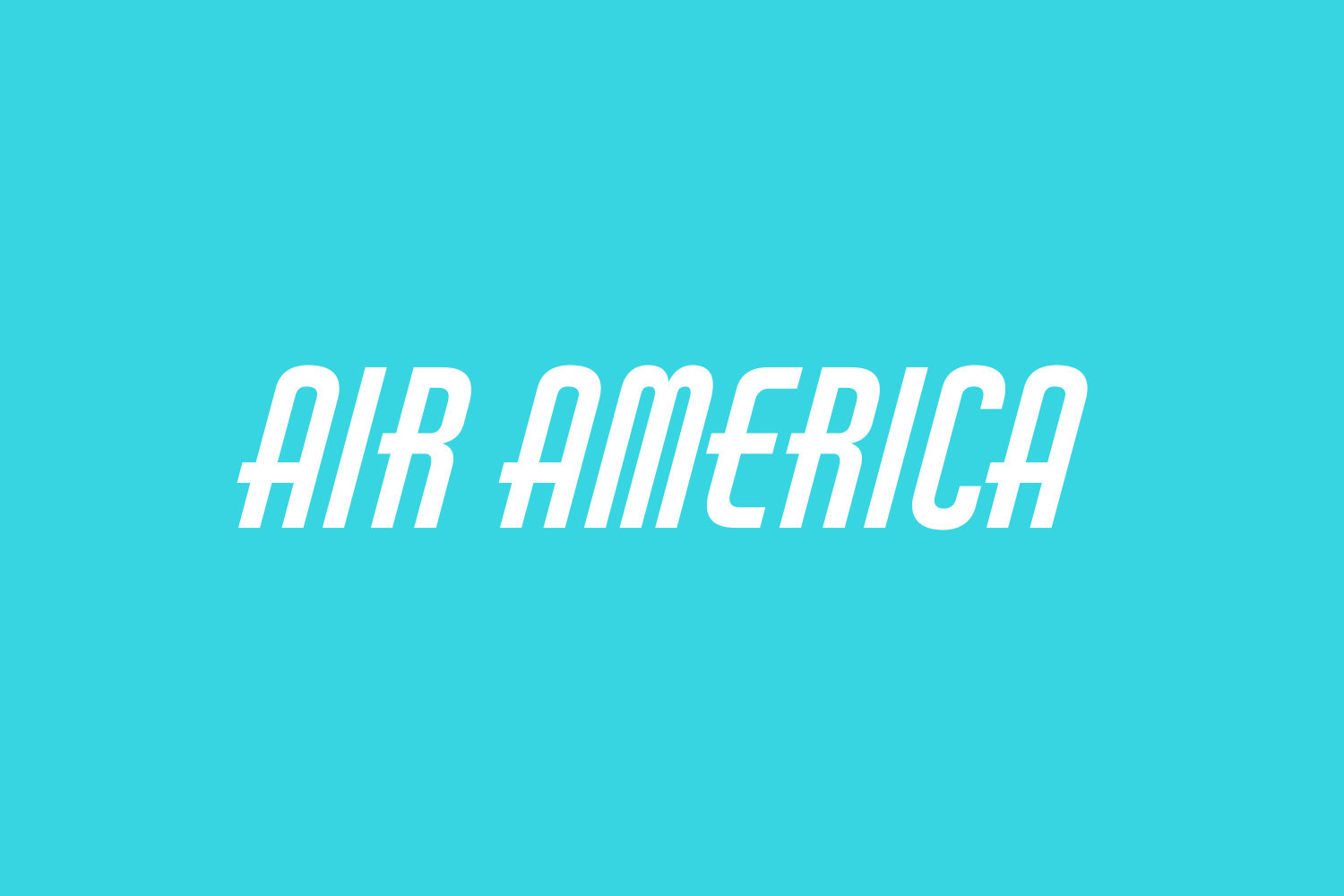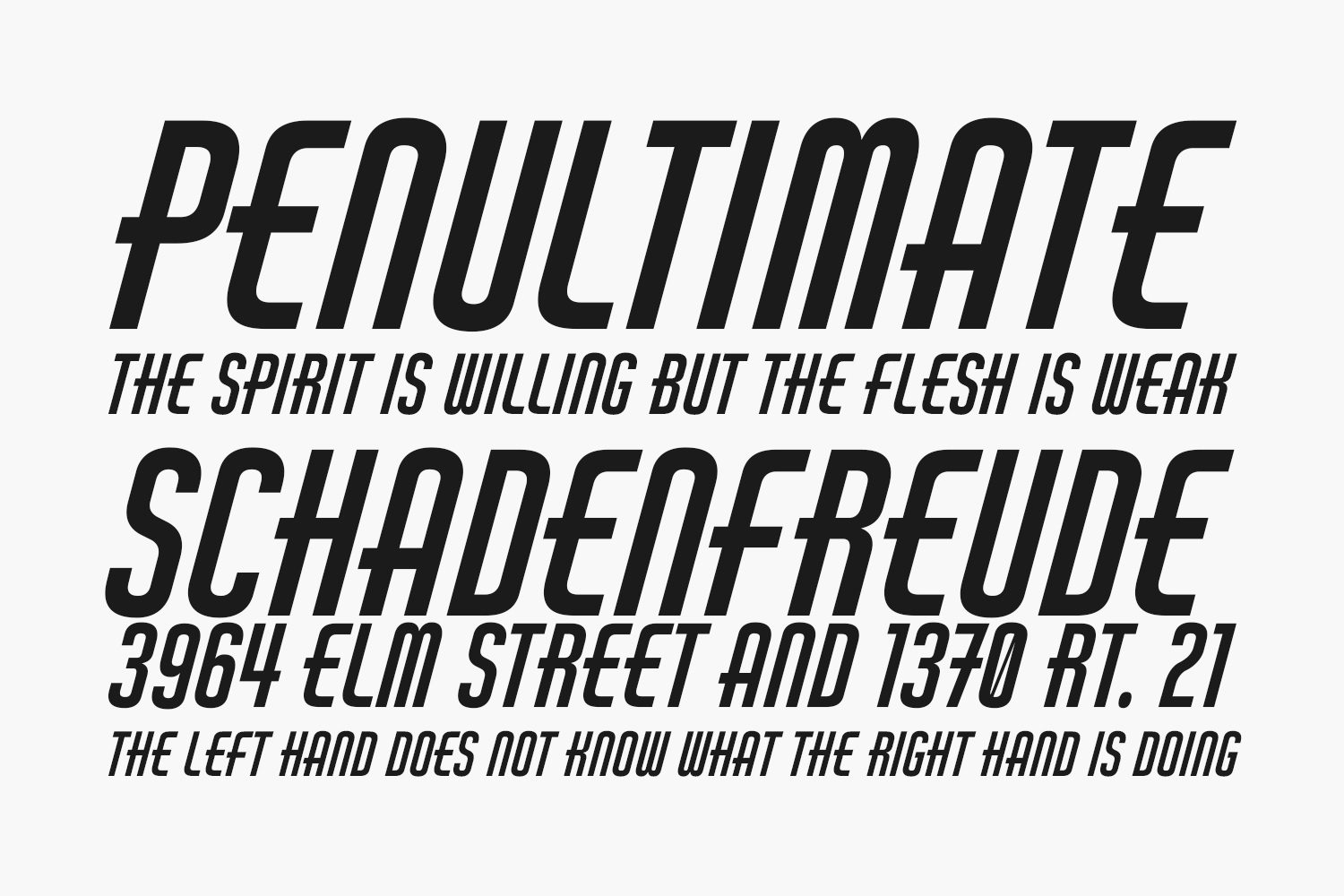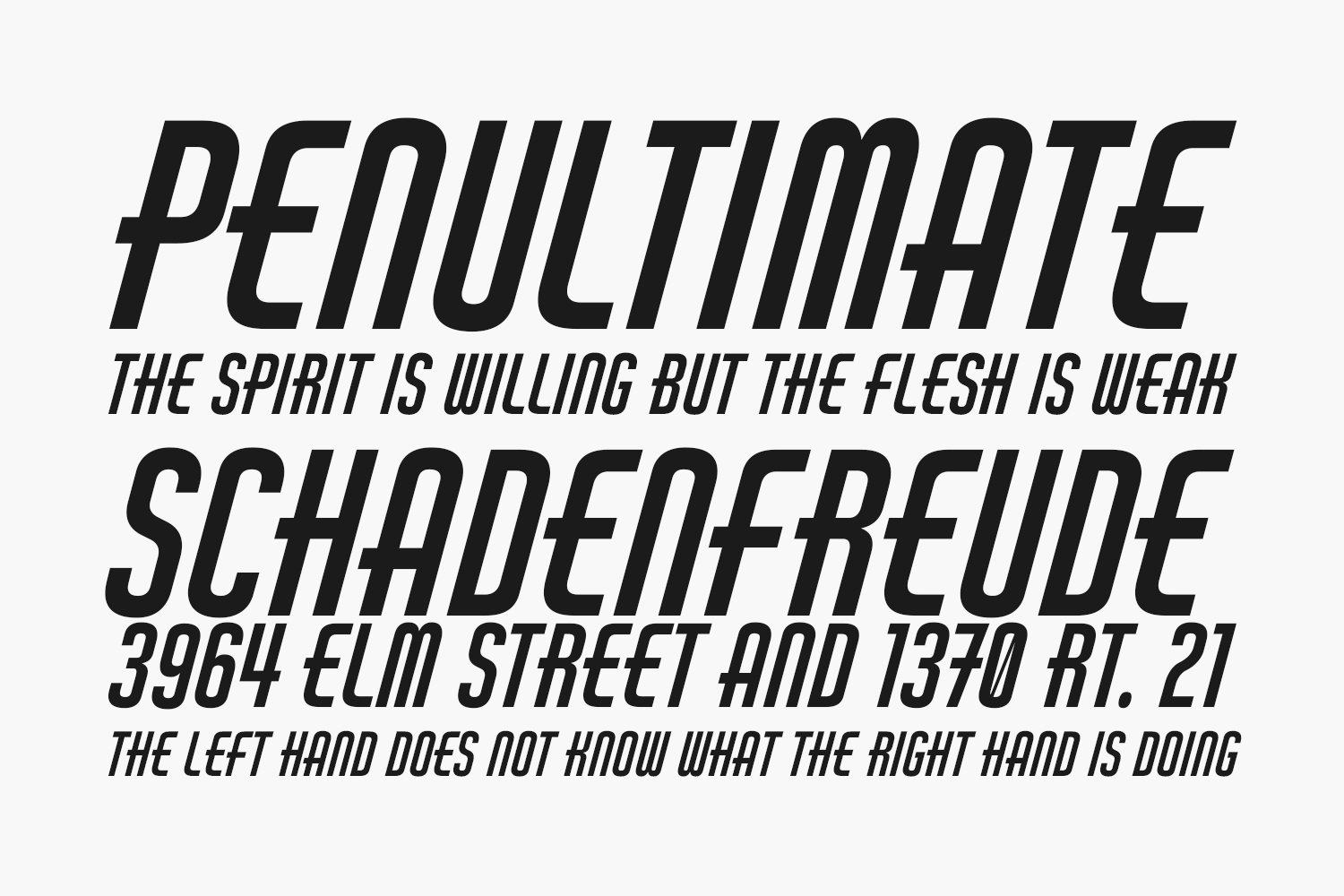
Air America was produced for William G. Sherman who recreated this alphabet from samples of the logo and other sources from the airline company Air America. Paid for by his family. “Air America” name used with permission from the Air America Association. Digitized and mastered by Aaron Bell.